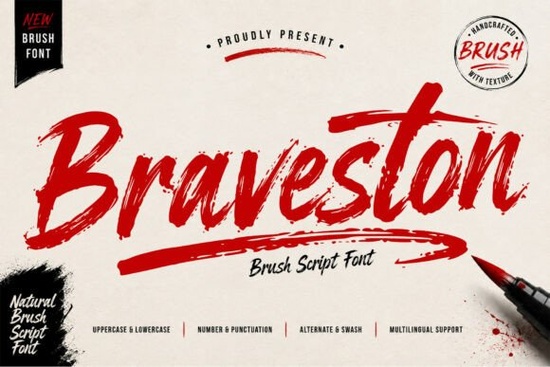
Braveston Font is a standout choice for anyone looking to add a unique, handcrafted feel to their design projects. Whether you're working on logos, social media graphics, or print materials, this brush script font brings a sense of energy and authenticity that’s hard to match. Its organic style mimics the natural flow of handmade brush strokes, making it ideal for creative professionals who want to infuse their work with a personal touch.
If you’re exploring script fonts, Braveston fits well within the broader category of vintage-style typefaces. It shares similarities with other popular options like Father Farmhouse and Cream Candy, but its bold yet fluid design sets it apart. The font’s versatility means it can be used in everything from branding elements to eye-catching headlines, offering a dynamic alternative to more traditional serif or sans-serif fonts.
One of the key strengths of Braveston is its balance between readability and artistic flair. While it has a strong presence, it doesn’t sacrifice clarity, making it suitable for both large-scale displays and smaller text blocks. This makes it a valuable addition to any designer’s toolkit, especially when working on projects that require a fresh, expressive look.
How does Braveston compare to other script fonts?
When compared to similar fonts like Oligeb or Beauty Handwriting, Braveston offers a more robust and confident appearance. It’s less delicate and more structured, which gives it a modern edge while still maintaining the warmth of a hand-painted style. This makes it particularly useful for designers who want to convey strength and creativity without compromising on aesthetics.
What are the best use cases for Braveston Font?
Braveston is especially effective in applications where visual impact matters. It works well for headlines, banners, and promotional materials that need to grab attention. Its brush-like texture adds a tactile quality that can make designs feel more authentic and engaging. This makes it a great option for small businesses, crafters, and print-on-demand sellers looking to create distinctive branding elements.
Another area where Braveston shines is in digital design. Whether you're creating social media posts, website headers, or email newsletters, this font can help your content stand out. Its dynamic style pairs well with modern layouts, adding a creative edge without overwhelming the overall composition.
If you're looking for a font that combines artistic expression with practical usability, Braveston is worth considering. It’s not just about style it’s about how the font can enhance the message you’re trying to convey.
For more inspiration, you can browse through the vintage font script fonts section or check out other related categories. These resources can help you discover new fonts that align with your design goals and aesthetic preferences.
Whether you're a seasoned designer or just starting out, Braveston Font provides a powerful way to express creativity. Its blend of boldness and elegance makes it a versatile tool for a wide range of applications. With the right approach, it can elevate your designs and help you stand out in a competitive market.
If you're ready to try Braveston, consider downloading it from Creative Fabrica. Once you’ve added it to your collection, experiment with different layouts and styles to see how it can enhance your work. You may find that it becomes one of your go-to fonts for projects that require a fresh, expressive look.
Before finalizing your design, make sure to test the font in different sizes and contexts. This will help you ensure that it works well across all platforms and formats. By taking the time to explore its potential, you can make the most of what Braveston has to offer.